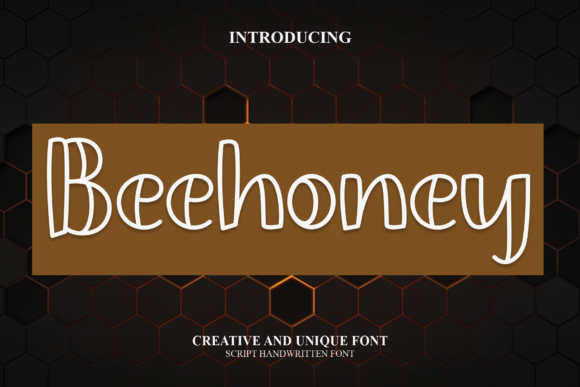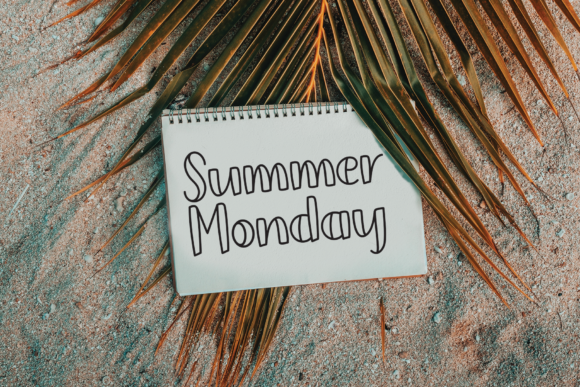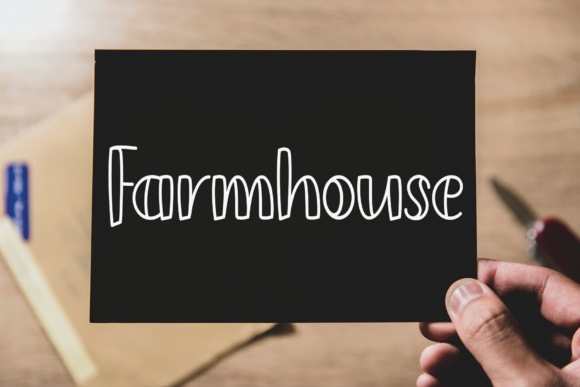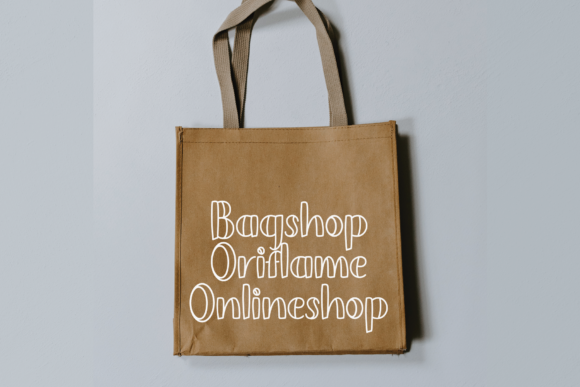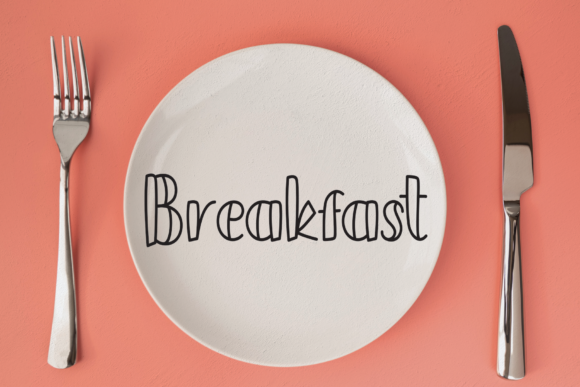
Beehoney Font
About Beehoney Font
The captivating and flowing handwritten font you’ve described is a design treasure, offering a perfect blend of beauty and elegance. Its versatility makes it an ideal choice for a wide range of creative projects, adding a touch of sophistication to each application. Here’s an extended version:
**Wall Hangings:** Transform your living or working spaces into personalized art havens with enchanting wall hangings. The beautiful script of this font lends a unique and artistic quality, turning your walls into a showcase of visual delight.
**Wedding Invitations:** Imbue your wedding invitations with a sense of romance and timeless beauty. The flowing script sets the stage for a celebration of love, ensuring that each invitation becomes a cherished keepsake.
**Social Media Post Logos:** Craft distinctive and memorable logos for your social media presence. The beauty and flow of this font bring authenticity and elegance to your brand identity, making your posts stand out with sophistication.
**Advertising:** Elevate your advertising materials with typography that leaves a lasting impression. The impressive and flowing characters of this font add refinement and charm to your promotional campaigns, creating visually striking and memorable content.
**Product Packaging and Design:** Infuse a touch of luxury and style into your products with packaging that captivates. Whether on labels or overall product design, this font enhances the visual appeal, ensuring your products make a lasting impression on the shelves.
**Labels:** Create labels that not only convey information but also make a visual statement. The beautiful script adds an artistic touch, ensuring your products are noticed and remembered for their aesthetic allure.
**Photography:** Enhance your photographic work with a watermark that complements your artistic vision. The flowing script becomes a distinctive signature, turning each photograph into a captivating piece of visual storytelling.
**Invitations and Stationery:** Whether for formal events or everyday correspondence, this font elevates invitations and stationery to a new level of elegance. Each piece becomes a testament to timeless sophistication, leaving recipients with a lasting impression.
In essence, this beautiful and flowing handwritten font is a design powerhouse, capable of enhancing the visual appeal of wall hangings, wedding invitations, social media logos, advertising materials, product packaging, labels, photography, watermarks, invitations, stationery, and any project that requires impressive typography. Its versatility and timeless elegance make it an invaluable asset for creative projects across various mediums.